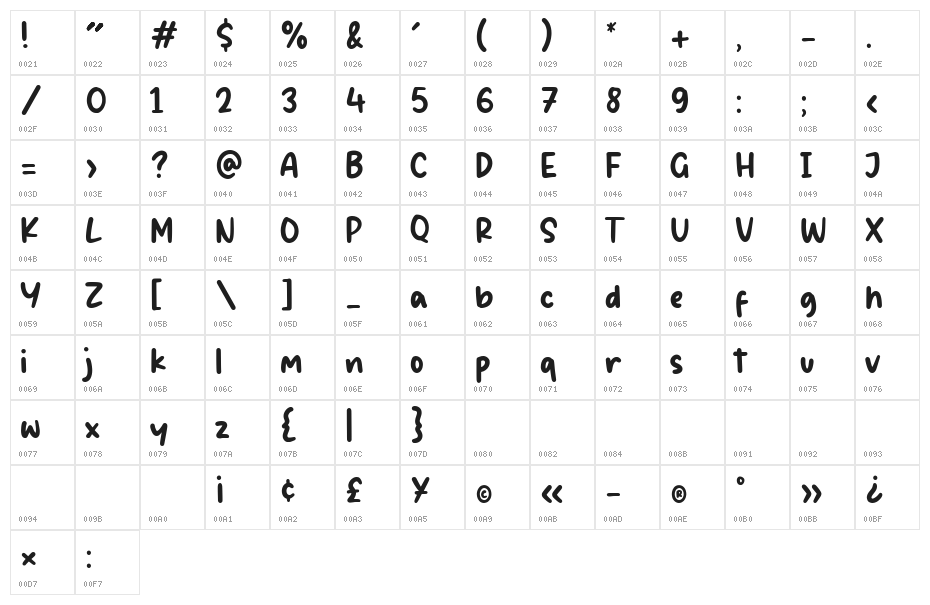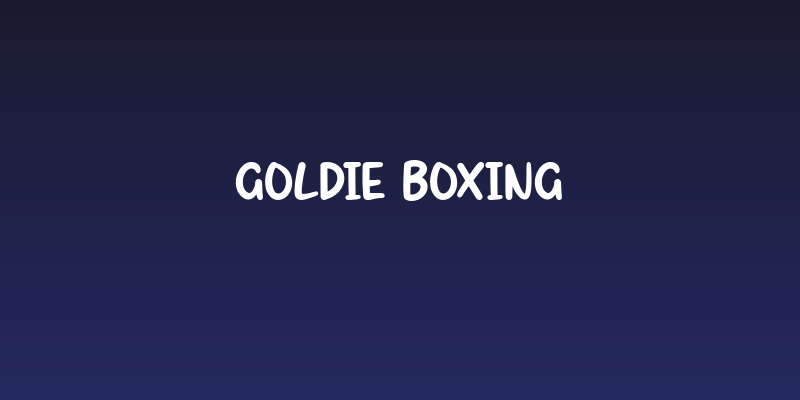
Goldie Boxing Font
Goldie Boxing Description
This font features a playful and bold handwritten style, characterized by its rounded and smooth letterforms. The uppercase and lowercase letters maintain a consistent thickness, giving it a uniform appearance. The numbers and special characters are designed with the same playful aesthetic, making it suitable for informal and creative projects. The font's rounded edges and lack of sharp angles contribute to its friendly and approachable look, making it ideal for children's books, casual branding, and fun posters. Its readability is enhanced by the even spacing between characters, ensuring clarity in various sizes.
| Proposed Projects | Ideal for children's books, casual branding, fun posters, and creative projects. |